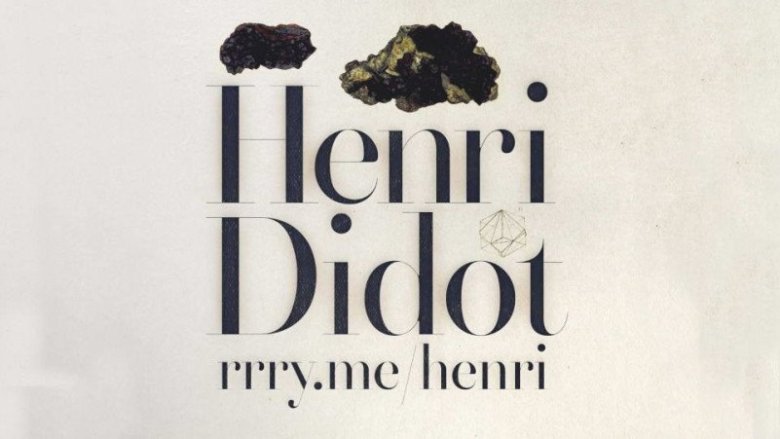
Henri Didot Font
Henri Didot is a luxurious serif typeface created by Rory Harnden with high contrast. This font comes with full set of uppercase and lowercase letters, numerals and symbols, alternates and ligatures. Henri Didot is based on the work of Alexey Kryukov.